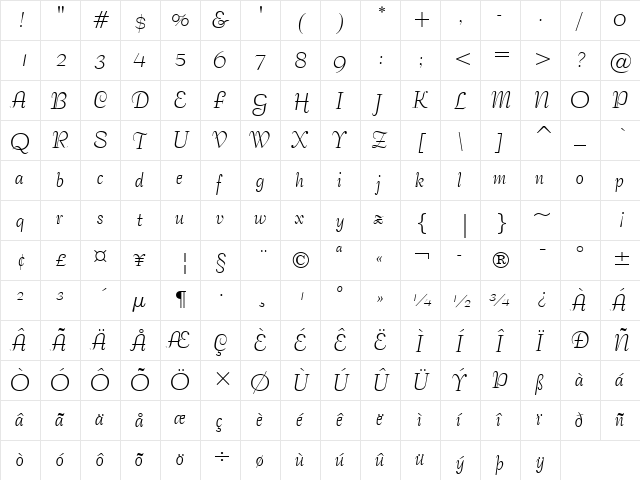
BernhardTango BT Regular Font Preview
BernhardTango BT Regular
Design Context for BernhardTango BT Typeface
BernhardTango BT offers clean, dependable letterforms without strong stylistic allegiance, making it a practical choice for designers who need flexibility.